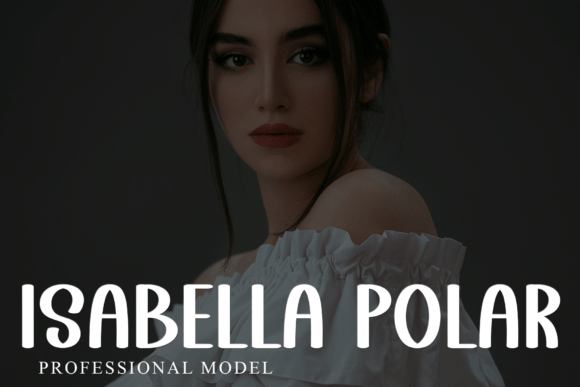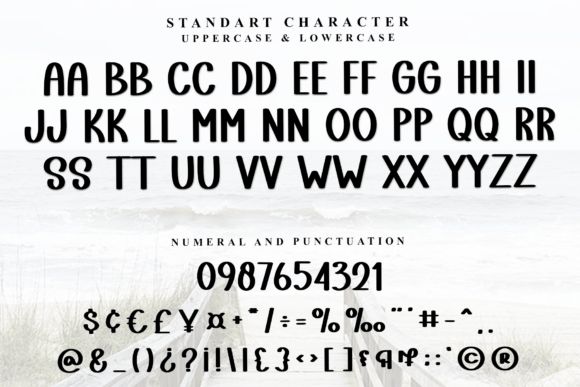
Boy Scout Font
Boy Scout is a sweet and friendly handwritten font. Its natural and unique style makes it incredibly fitting to a large pool of designs. The only limit is your imagination!